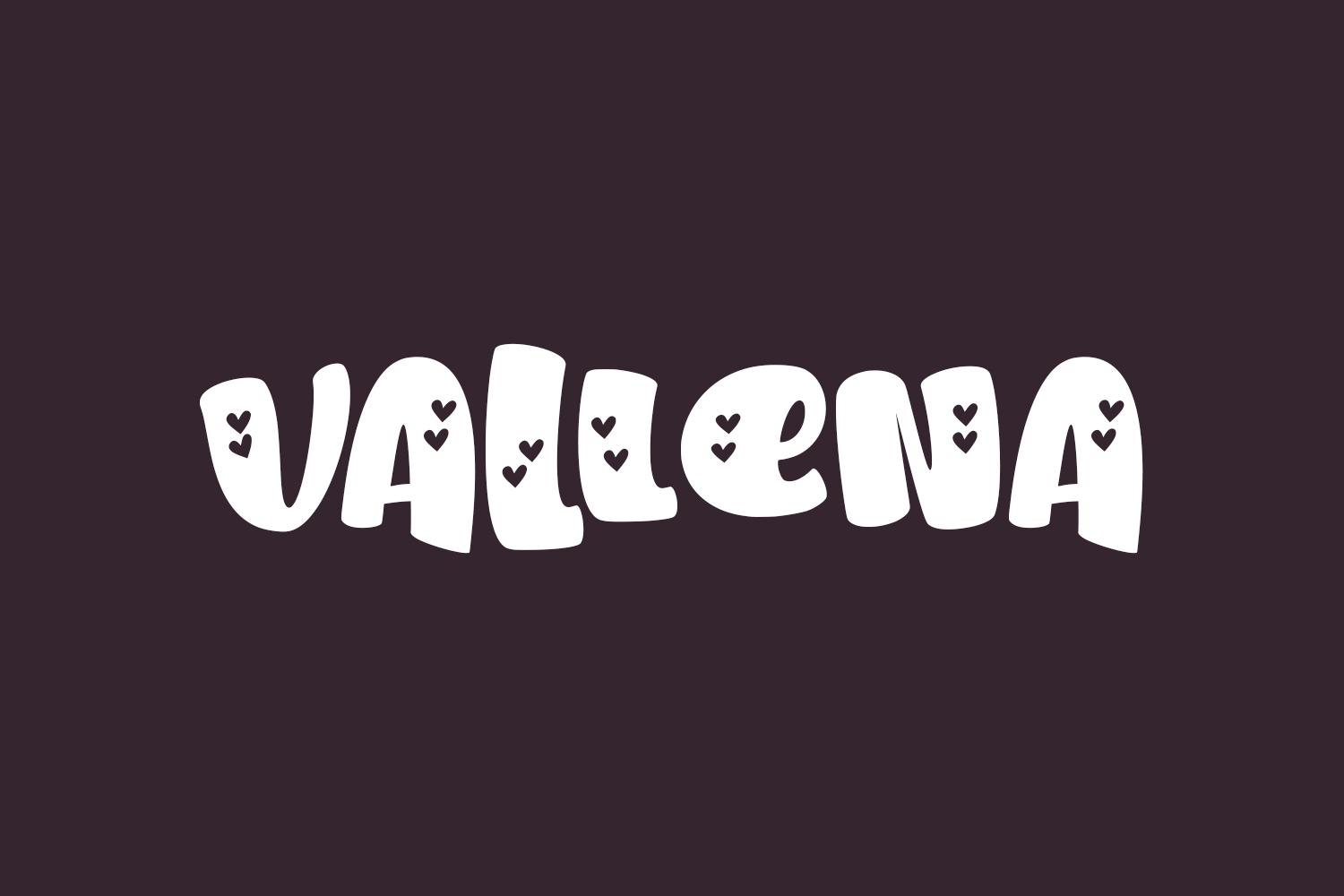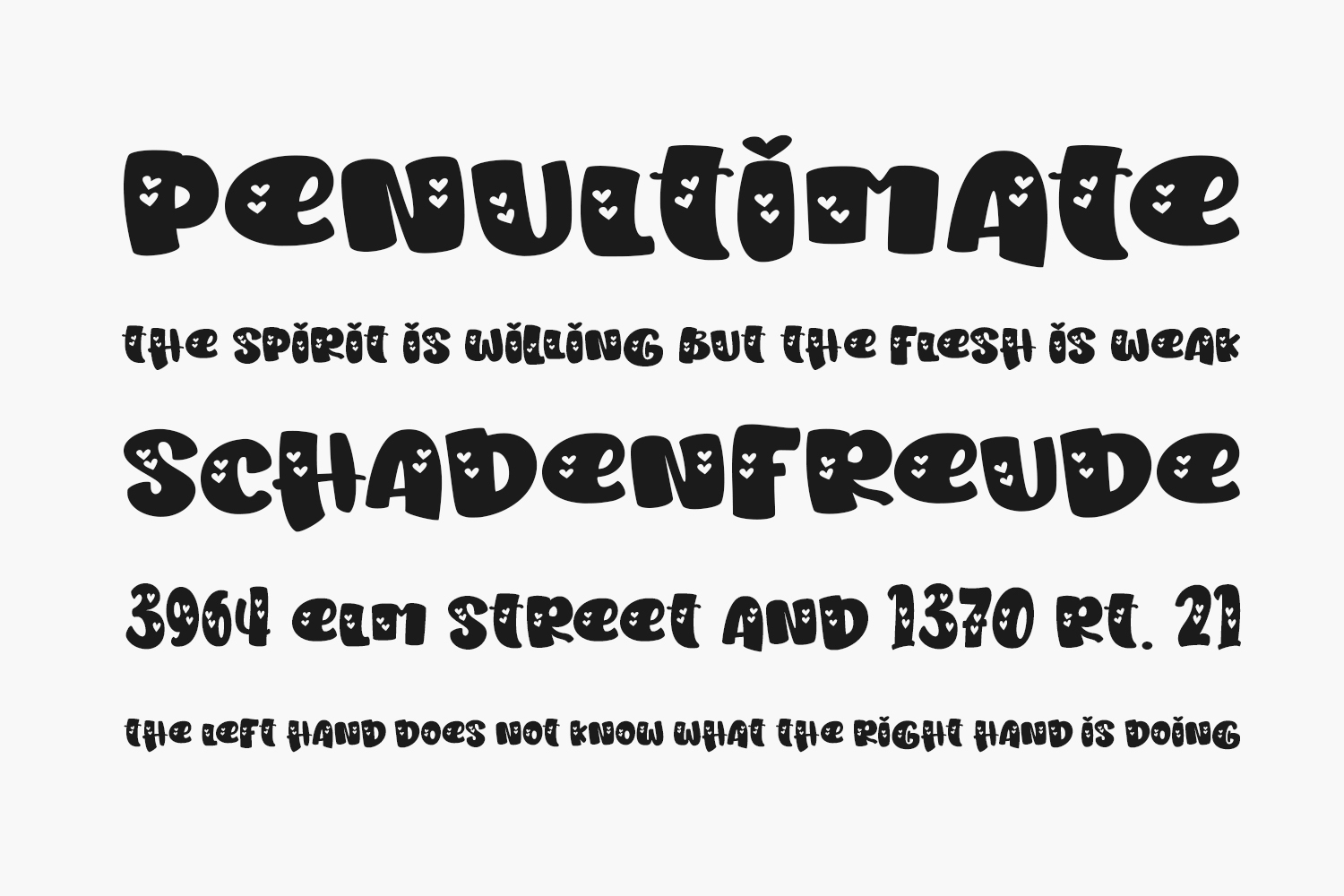
Vallena Free Font is a fresh, modern and playful display font. It is perfect for many different projects such as logos & branding, invitations, birthday parties, valentine, fashion, stationery, and much more.
Designed by Stefani Letter